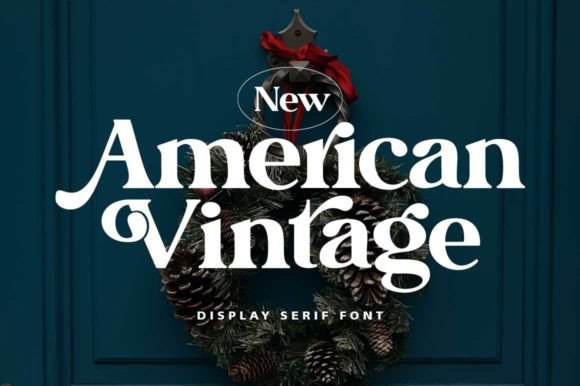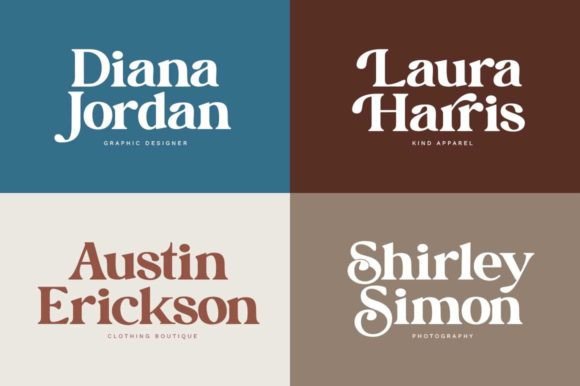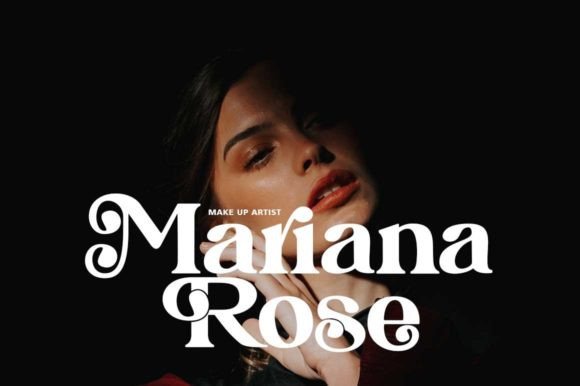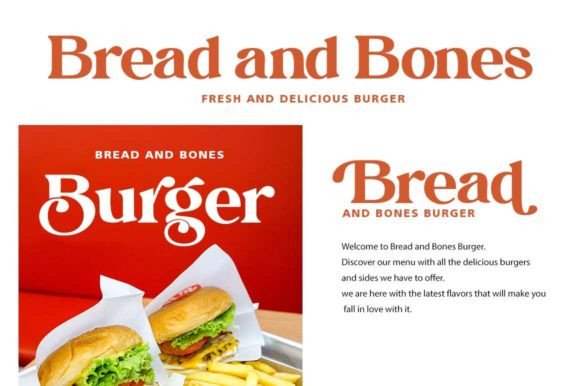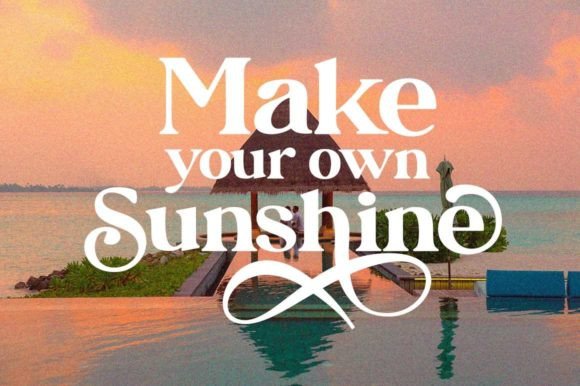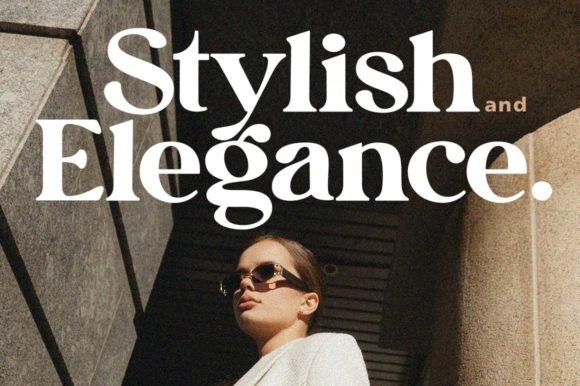
American Vintage is a bold and elegant serif font inspired by classic Americana. Its refined curves and timeless charm make it perfect for logos, headlines, and editorial layouts. Add a touch of retro sophistication and nostalgic flair to your designs with this vintage-inspired typeface.